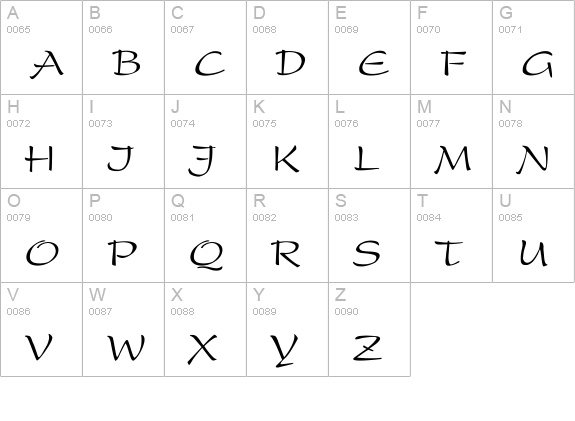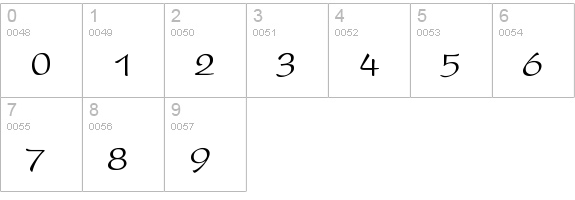
Prescript Font Details
Prescript font is a beautifully crafted typeface that exudes elegance and sophistication. Its flowing lines and intricate details make it perfect for adding a touch of class to any design project. With its timeless appeal and versatility, Prescript font is sure to make a lasting impression. The best part? Prescript font is available for free download at FontsMarket.com. Now you can enjoy the beauty and charm of this exquisite font without any cost. Whether you're working on a branding project, invitation design, or any other creative endeavor, Prescript font is the perfect choice to elevate your work to the next level. Download it today and let your creativity shine with this stunning typeface.